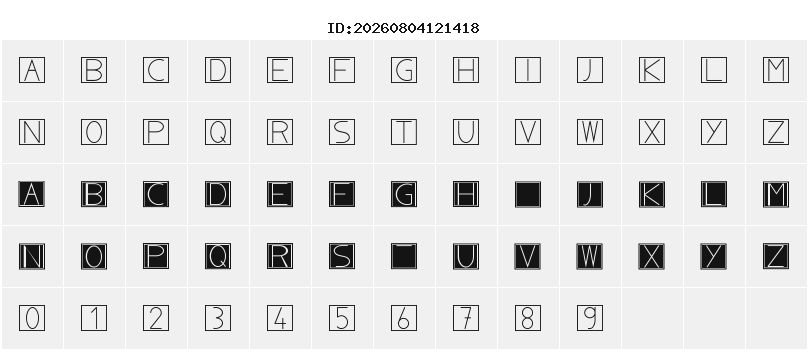
• Font Name: NoblaCS
• Full Font Name: NoblaCS
• Version: Version 1.00 March 23, 2006, initial release
• Copyright: Typeface © Claude Soulayrac. 2006. All Rights Reserved
• Designer: Claude Soulayrac
• Description: This font was created using Font Creator 5.0 from High-Logic.com
About NoblaCS.ttf
NoblaCS.ttf is a modern, elegant sans-serif font designed for ultimate readability and visual harmony. Perfect for branding, headlines, web design, and print materials.